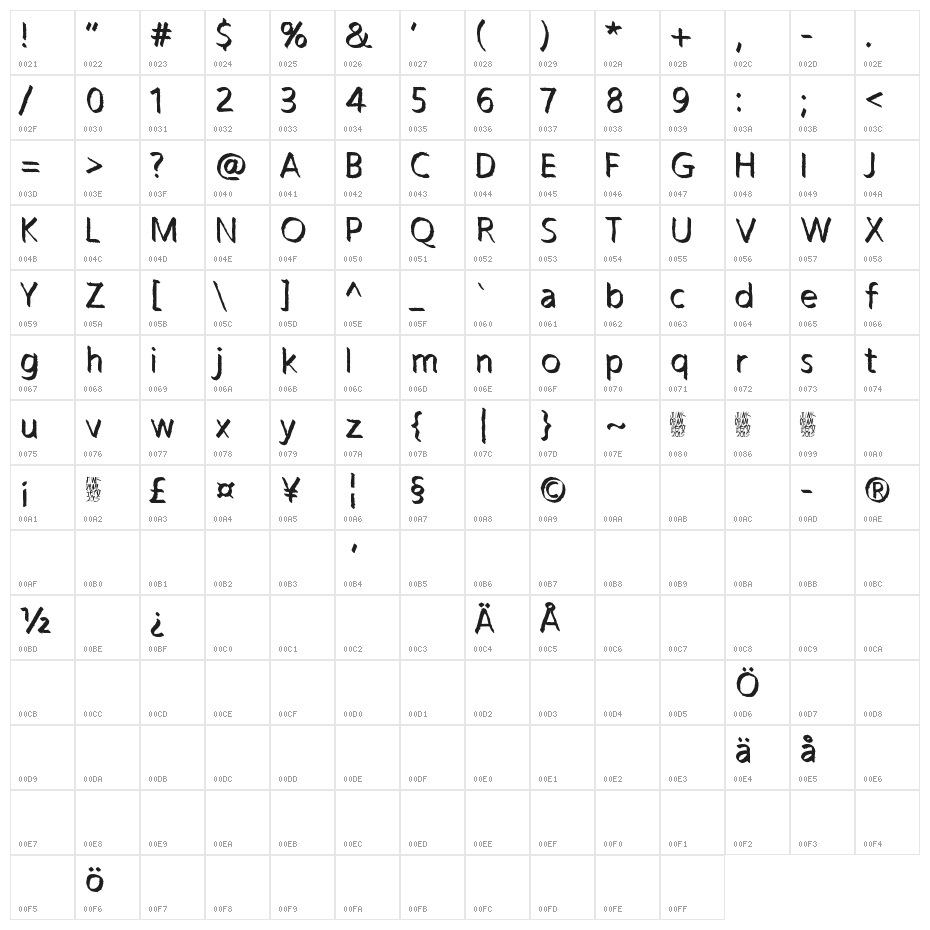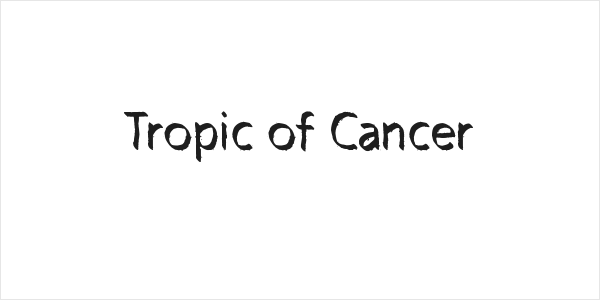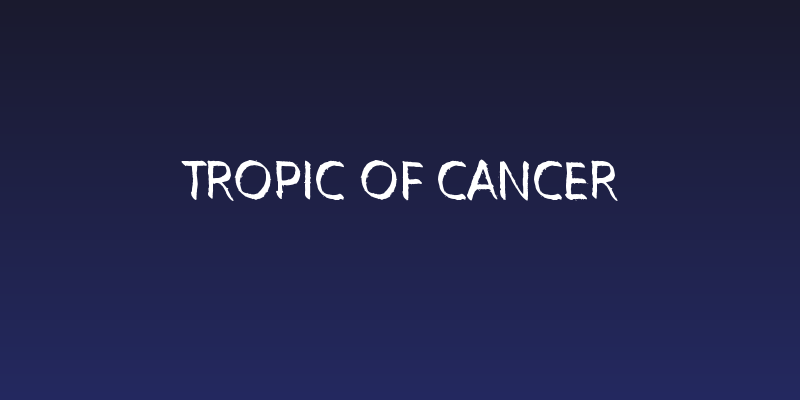
Tropic of Cancer Font
Tropic of Cancer Description
This font features a hand-drawn, textured appearance that gives it a rustic and organic feel. The characters are slightly irregular, adding to the handcrafted aesthetic. The strokes are uneven, with a rough edge that suggests a brush or marker tool was used in its creation. This style is both casual and artistic, making it suitable for projects that require a personal touch. The uppercase and lowercase letters are distinct, with a playful yet readable form. Numbers and special characters maintain the same textured style, ensuring consistency across all glyphs.